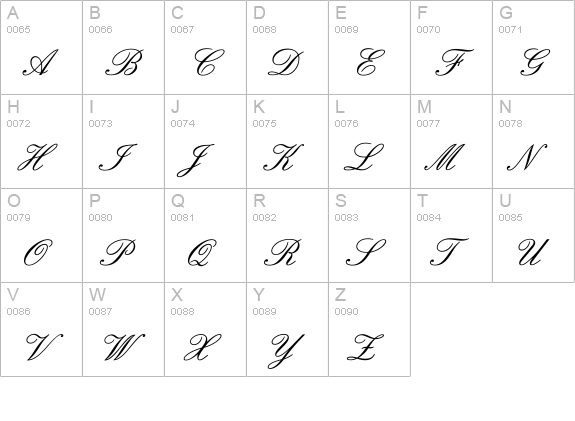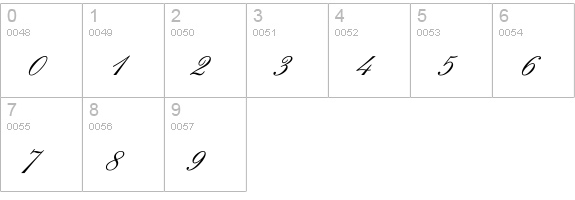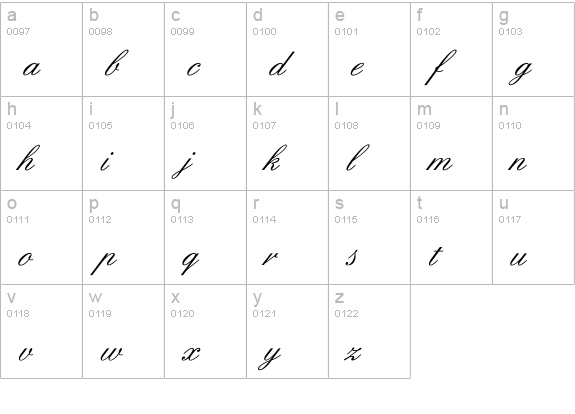
Senator is a versatile and elegant font that exudes sophistication and professionalism. This timeless typeface effortlessly combines classic and modern elements, making it the perfect choice for a wide range of design projects. Its sleek and stylish design is sure to captivate and engage readers, whether it is used for print materials, digital content, or branding purposes. What sets Senator apart is its accessibility. This remarkable font is freely available to download at FontsMarket.com, allowing designers, creatives, and enthusiasts alike to effortlessly incorporate it into their projects. By offering Senator for free, FontsMarket.com ensures that this exceptional font can be enjoyed by everyone, regardless of their budget or resources. With its clean lines and balanced proportions, Senator commands attention and conveys a sense of authority and credibility. Its legibility and versatility make it an excellent choice for headlines, titles, body text, and captions. Whether it is used in magazines, newspapers, websites, or advertisements, Senator effortlessly enhances the visual appeal and readability of any piece of content. The versatility of Senator is further highlighted by its extensive character set. It includes a wide range of letters, numbers, punctuation marks, and special characters, ensuring that designers have the flexibility to express their creativity and bring their vision to life. Whether you are working on a corporate project, a fashion publication, a logo, or any other design endeavor, Senator will effortlessly elevate your work to new heights. Its timeless elegance, accessibility, and versatility make it a must-have font for any designer's toolkit. So go ahead, explore the beauty and possibilities of Senator, and unleash your creativity with this amazing font, available for free at FontsMarket.com.